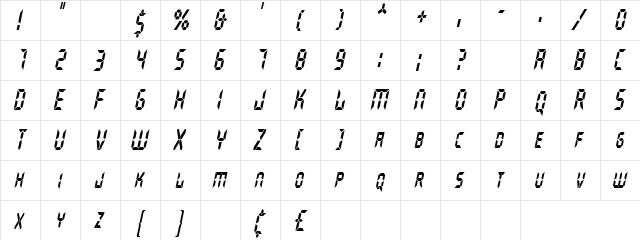
GhostMachineCondensed Oblique Font Preview
Design Context for GhostMachineCondensed Typeface
GhostMachineCondensed takes a measured approach to typography — its balanced proportions and neutral character make it a reliable workhorse for both digital and print work. The slanted form adds forward momentum and visual energy. The condensed width makes it efficient for tight spaces without sacrificing legibility.
Pro Tip: Use GhostMachineCondensed for emphasis, pull quotes, and subheadings where its slanted energy can add rhythm to the layout.